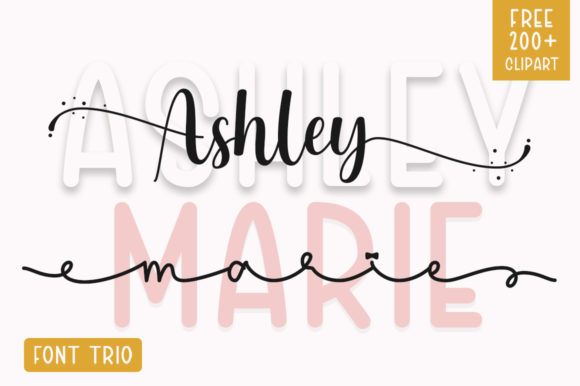
Introducing Ashley Marie Font - the perfect duo font that you never knew you needed! Created by the talented Fillo Graphic, this script and sans serif combination is a must-have for anyone looking to add some personality and style to their designs.
One of the most striking features of Ashley Marie Font is its versatility. Whether you're creating a bold poster, a delicate invitation, or anything in between, this font has got you covered. It adapts effortlessly to different design styles and adds a touch of elegance and sophistication to any project.
But don't just take our word for it - try it out for yourself! Download Ashley Marie Font and watch as your creative ideas come to life. The script font is perfect for adding a personal touch to any design, while the sans serif option is ideal for creating eye-catching headlines and subheadings.
What sets Ashley Marie Font apart from other fonts on the market is its ability to evoke emotion and create a connection with your audience. Its flowing script letters are reminiscent of handwritten notes, adding a sense of warmth and intimacy to your designs. This font is perfect for anyone who wants to convey a message of love, friendship, or creativity.
In short, Ashley Marie Font is a must-have for anyone who wants to elevate their designs to the next level. It's versatile, stylish, and guaranteed to make your creative ideas come alive. So why wait? Download Ashley Marie Font today and start creating designs that truly stand out!